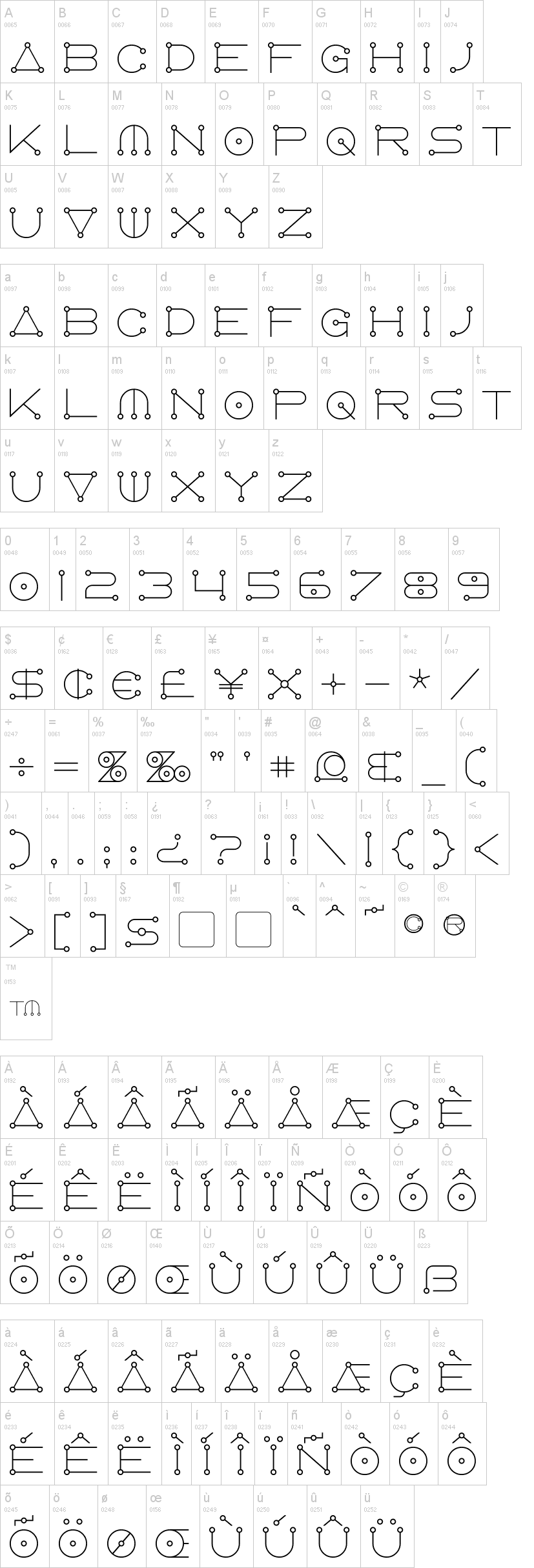
AngloCelestial Italic.otfAngloCelestial Bold.otfAngloCelestial Bold Italic.otfNote of the authorAngloCelestial is an English-readable version of the classic angelic runs script. The font is very thin with open circle highlights to add a slight ethereal flare. Includes full alphabet, extended punctuation, euro. Includes regular bold, italic, and bold-italic faces.